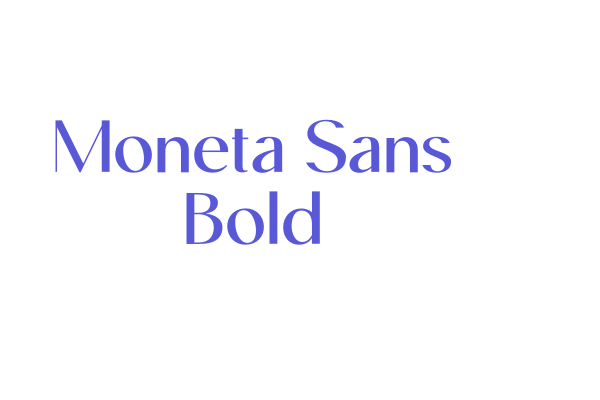
Moneta Sans Bold is a sleek and modern typeface designed by Santi Rey. Part of the Moneta Sans font family, this bold style is perfect for making a statement in headlines, logos, and branding materials. With its clean lines and strong presence, Moneta Sans Bold is ideal for projects that require a bold and contemporary look.
Font Name: Moneta Sans Bold
Designer: Santi Rey
Font Family: Moneta Sans